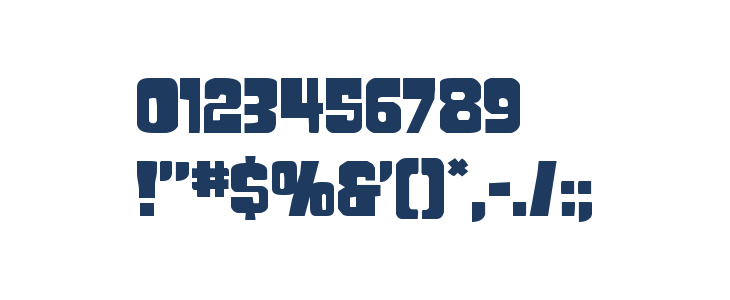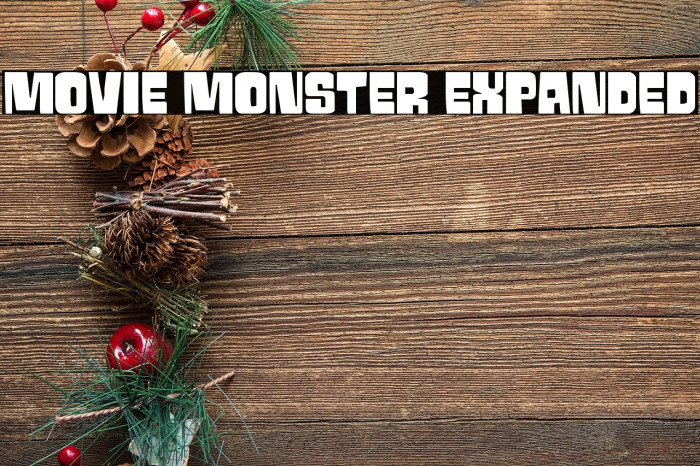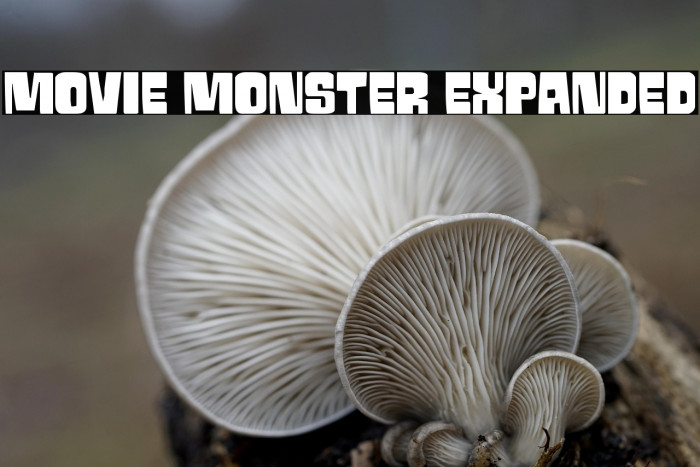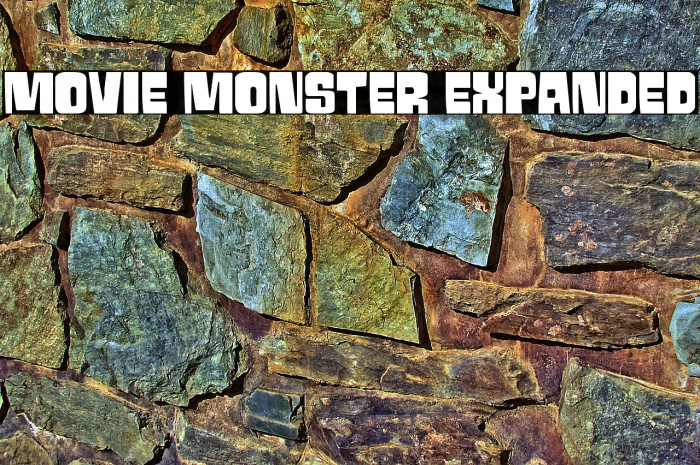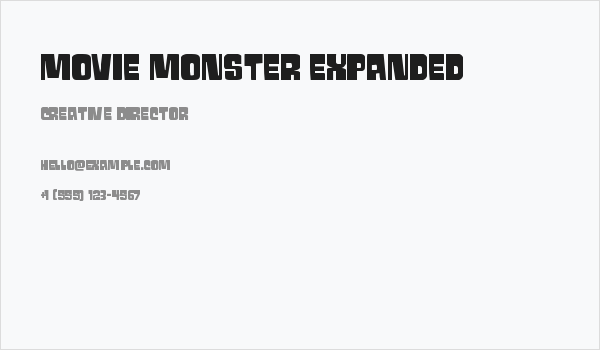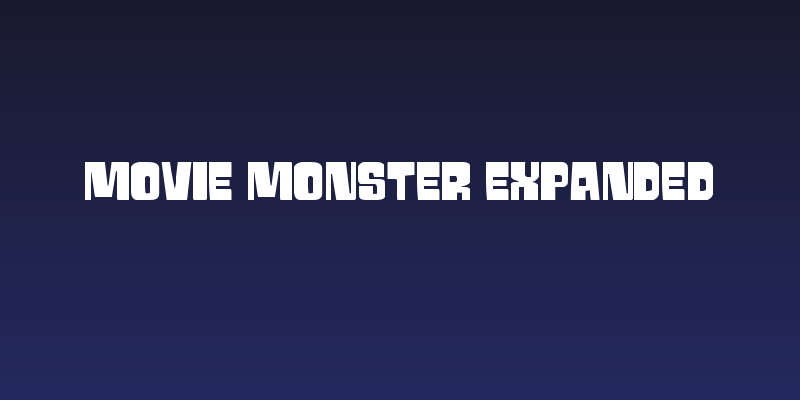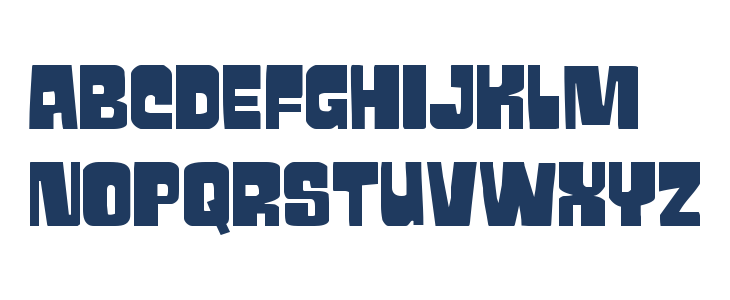
Movie Monster Expanded Font
Movie Monster Expanded Description
This font features a bold and impactful design with thick, blocky letters that convey a sense of strength and presence. The characters are uniformly wide, creating a cohesive and solid appearance. The uppercase letters are particularly striking, with sharp angles and a geometric style that adds a modern touch. The numbers and special characters maintain the same boldness, ensuring consistency across all elements. This font is ideal for projects that require a strong visual impact, such as posters, headlines, and branding materials. Its expanded width and heavy weight make it stand out, drawing attention to any text it is used with.
| Proposed Projects | Ideal for movie posters, branding, headlines, and any project needing a strong visual impact. |